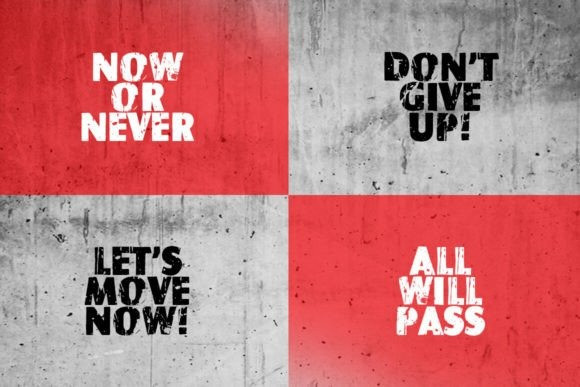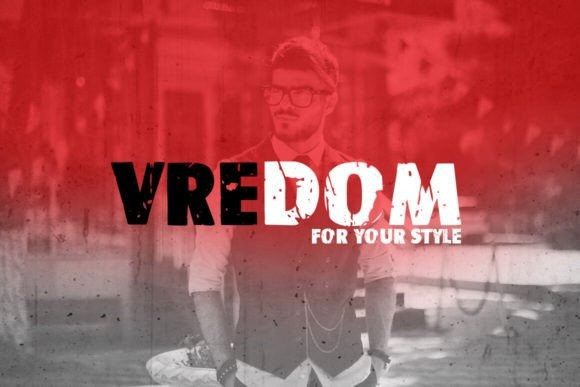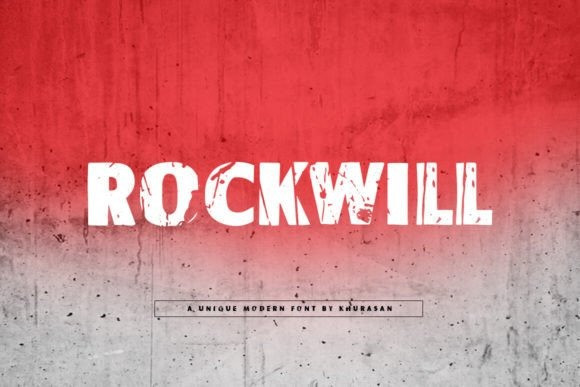
Rockwill Font
Rockwill Font is a modern sans serif rough font perfect for posters, logos, magazines, book covers, banners, and many more! Get this quirky font, and use it to create lovely designs! It can easily be matched to an incredibly large set of projects, so add it to your creative ideas and notice how it makes them stand out!